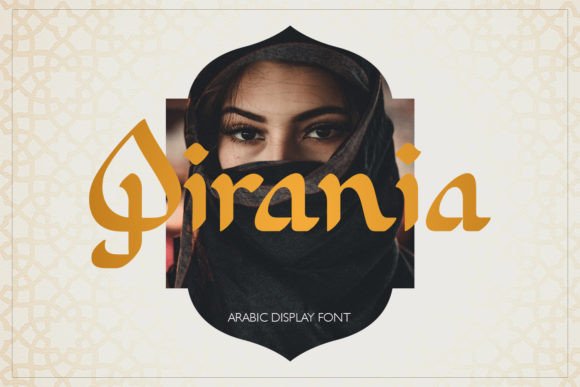
Venture into the realm of captivating calligraphy with Qirania Font, a display font family that weaves the essence of Arabic art into the digital tapestry. This enchanting creation by typelinestudio is an ode to the rich cultural heritage of the Middle East, meticulously crafted with Latin characters, making it universally accessible. Immerse yourself in the intricate beauty of its glyphs, swashes, and unique ligatures, effortlessly accessible with PUA encoding.
Qirania Font is a visual masterpiece that brings the allure of handwritten calligraphy to life, evoking the grandeur of ancient manuscripts and architectural marvels. Its elegant curves and flourishes lend an air of sophistication and mystique to any design concept, making it the perfect choice for projects that demand elegance and distinction.
Whether you're a seasoned graphic designer or a creative enthusiast, Qirania Font will ignite your imagination and elevate your designs to new heights. Its versatility extends to a myriad of applications, including logos, branding, invitations, social media graphics, and posters, adding a touch of artistic charm to any medium.
Join the ranks of discerning designers who recognize the power of Qirania Font to transform ordinary text into exquisite works of art. Unleash your creativity and delve into the boundless possibilities that await you. Let your designs speak volumes, captivating your audience with the allure of Middle Eastern calligraphy.